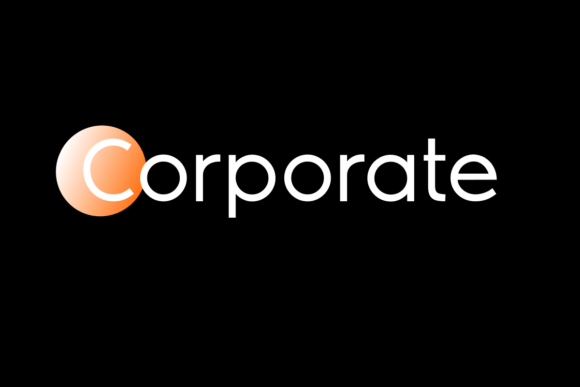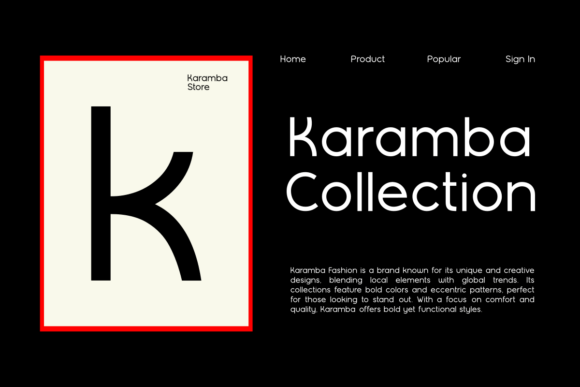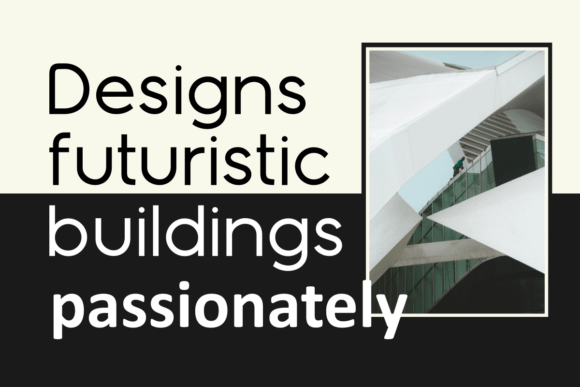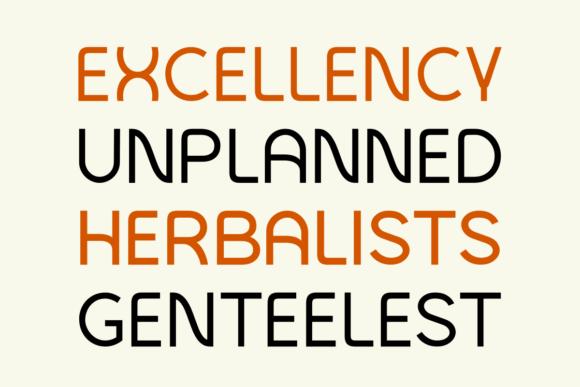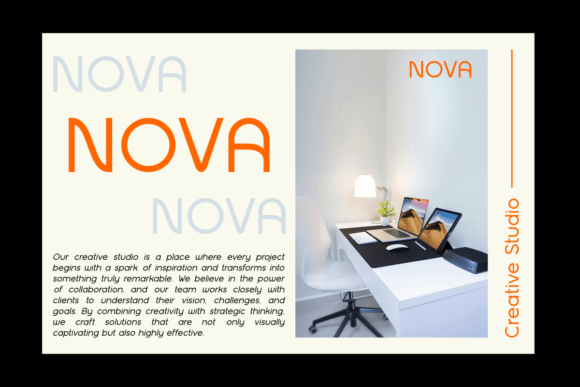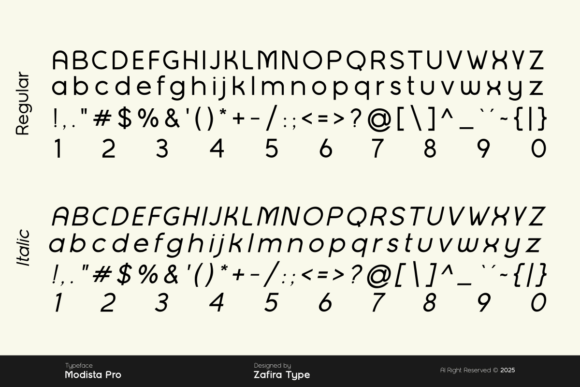
Introduction to Modista Pro Font
You’re staring at a blank canvas, your creative juices are flowing, and the possibilities seem endless. As a designer, you know that the right font can elevate your project from bland to grand. That’s where Modista Pro Font comes in – a game-changing sans-serif font that’s set to revolutionize the world of design.
| 👤 Author | zafira.type |
With its clean geometric principles and sheer balance, Modista Pro Font is the epitome of modernity and elegance. Whether you’re working on a branding project, creating a website, or designing an editorial piece, this font is sure to bring clarity and visual grandeur to your work. Plus, with a high-quality design and transparent background, it’s the perfect addition to any creative project.
As a valuable resource for designers, Modista Pro Font is free to download, making it an accessible and versatile design tool. Its ability to foster powerful typographic hierarchies ensures a captivating and professional appearance in all applications, making it an outright choice for any design endeavour.
Key Features of Modista Pro Font
- High-quality design resource ideal for creative projects, including logos, branding, and editorial content.
- Unique, modern design with a transparent background, allowing for flexibility in design composition and customization.
- Modista Pro Font comes in multiple weights and styles, offering a range of design options to suit your creative vision.
- High-resolution design, suitable for print and digital applications, including business cards, brochures, and web graphics.
- Perfect for designers, artists, and creatives seeking a high-quality, versatile font for their projects.
- Designed to be a valuable addition to any design resource library, offering a professional touch to your creative work.
Honest Review: Modista Pro Font
As a designer, I’m always on the lookout for high-quality design resources to enhance my creative projects. Recently, I stumbled upon the Modista Pro Font, and I’m excited to share my honest review with you.
- ✨ Unique and elegant design aesthetic that adds a touch of sophistication to any project
- ✨ Highly legible and versatile, making it suitable for a wide range of applications
- ✨ Includes a variety of weights and styles to cater to different design needs
- ⚠️ Limited language support, which may be a concern for designers working with non-English text
- ⚠️ No transparent background option, which may limit its use in certain design scenarios
Overall, I’m impressed with the Modista Pro Font’s quality and design versatility. While it may have some limitations, it’s a valuable addition to any designer’s toolkit. If you’re looking for a high-quality font to elevate your creative project, I’d definitely recommend giving it a try.
Tips for Getting the Most Out of Modista Pro Font
Use the Modista Pro Font on a transparent background to create a unique and eye-catching design. Experiment with different font sizes and styles to add visual interest to your project. This font is also perfect for creating a cohesive brand identity.
The Modista Pro Font is suitable for a variety of design projects, including:
- Social media graphics and advertisements
- Presentation slides and reports
- Print materials, such as business cards and brochures
What makes the Modista Pro Font suitable for creative projects?
The Modista Pro Font is designed to be highly versatile, making it suitable for a wide range of creative projects, from branding and marketing materials to digital products and print designs. Its high-quality design and extensive character set make it an excellent choice for designers looking to add a professional touch to their projects.